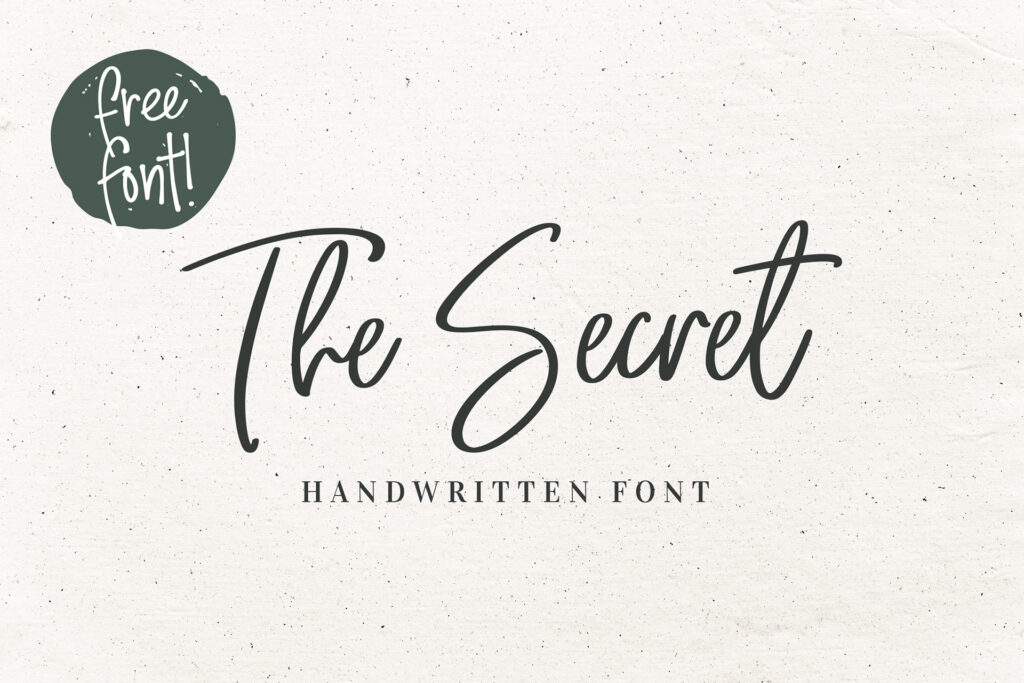
Indesign Signature font is the best choice for your professional design projects, including : signature, watermark on photography, quotes, wedding, fashion, letter, invitation, business card, logo, branding, magazines, social media, advertisements, product designs, and many other design project.
The Secret Free Font